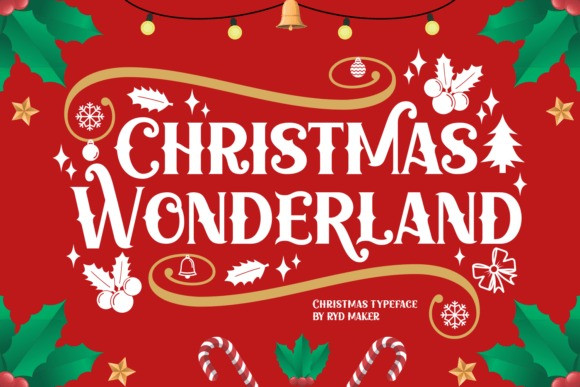
Christmas Wonderland Display Font
Christmas Wonderland Display Font is a festive and charming serif display font. It is PUA encoded which means you can access all glyphs and swashes with ease! This font is perfect for wintery-themed designs, especially when combined with warm colors.